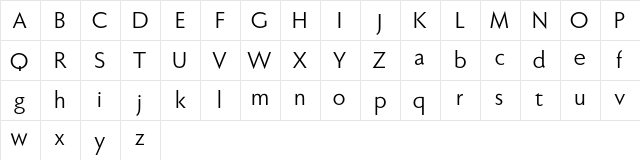
Faber Sans Pro reduced 55 Normal
Style: 55 Normal
Foundry: Ingo Zimmermann ingoFont Augsburg
Designer: Ingo Zimmermann
Design Context for Faber Sans Pro reduced
Faber Sans Pro reduced is a composed and adaptable typeface that performs quietly and consistently across a wide range of design contexts.